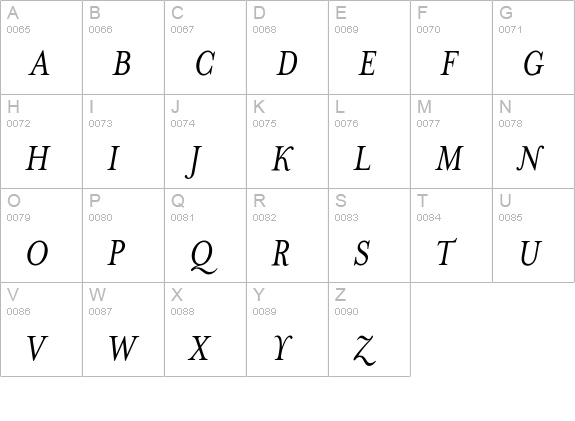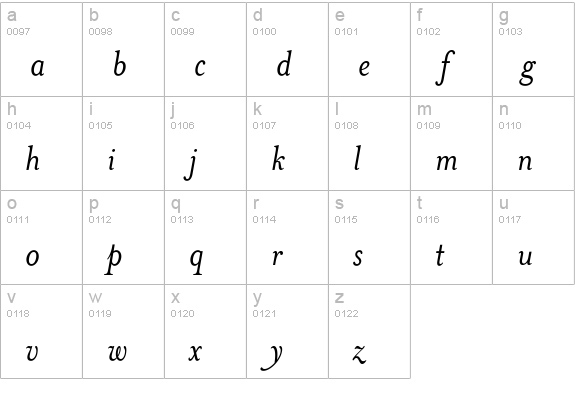
MrsEavesSmartLigItalic Font Details
MrsEavesSmartLigItalic is a sophisticated and elegant font that exudes a sense of refinement and grace. Its delicate italic style adds a touch of femininity and sophistication to any text or design project. The smooth curves and graceful flourishes of this font make it perfect for conveying a sense of luxury and style. What makes MrsEavesSmartLigItalic even more appealing is that it is available for free! You can easily download this stunning font at FontsMarket.com, where you can access a wide range of high-quality fonts for all your design needs. Whether you're working on a wedding invitation, a branding project, or simply want to add a touch of elegance to your personal correspondence, MrsEavesSmartLigItalic is the perfect choice. Download it today and elevate your designs with this beautiful and timeless font.